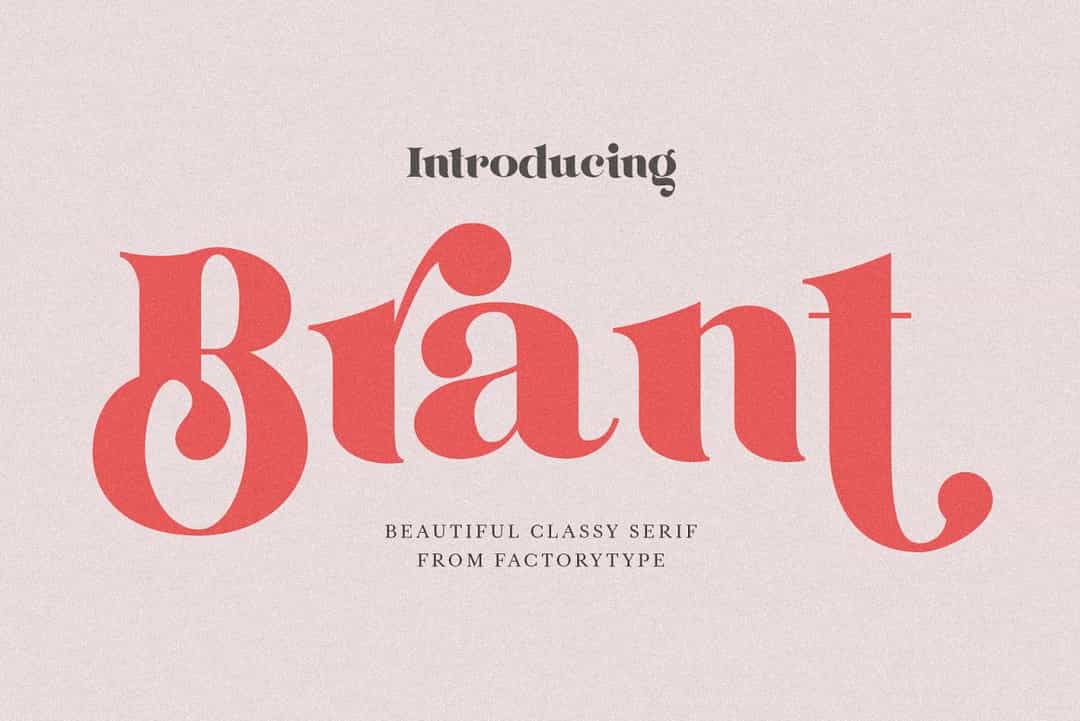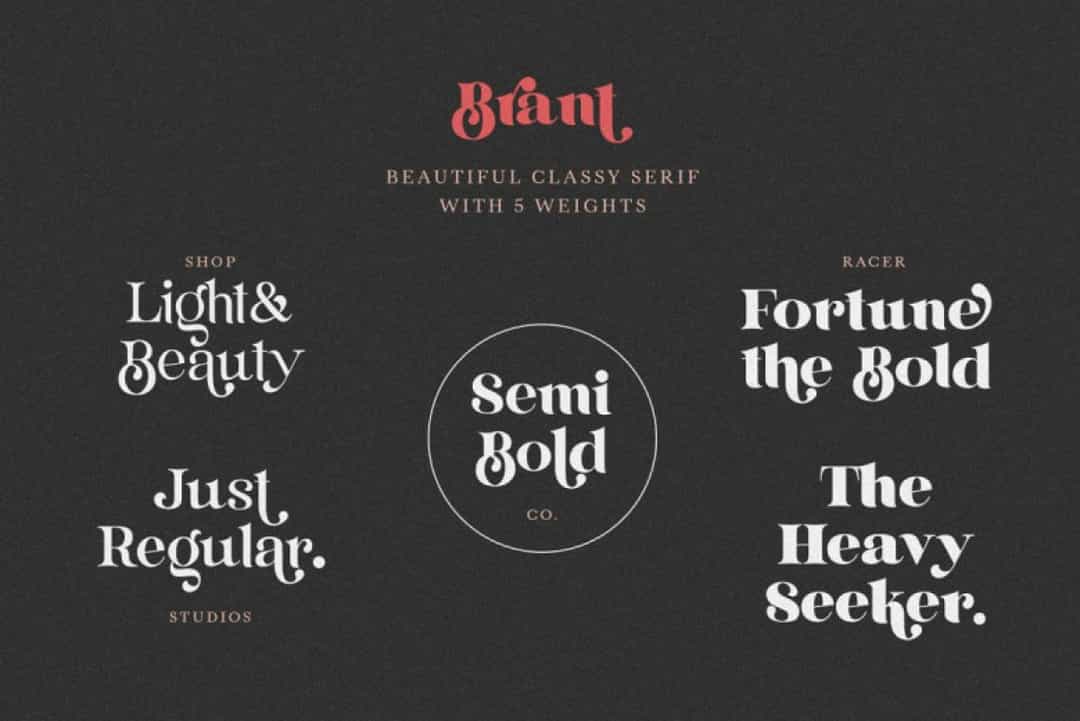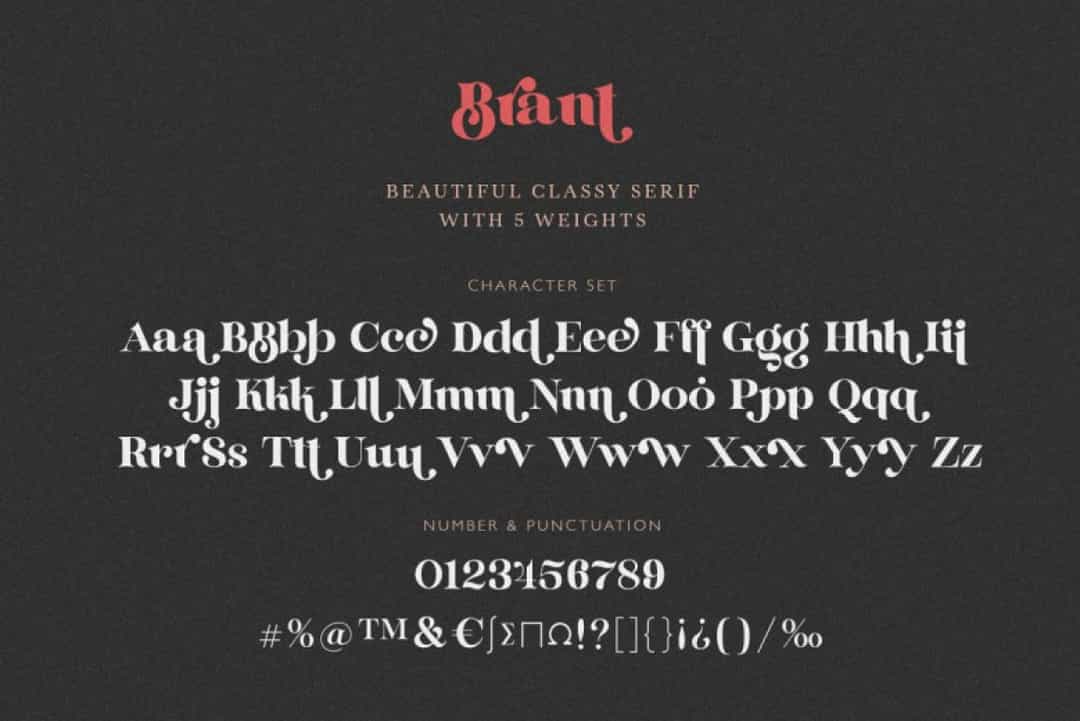
BRANT font is an exciting new addition to our collection, designed specifically for logos and branding with its modern classic serif design and curvy form evoking elegance and class. Available in various weights to find just the perfect hues for typography applications; no matter your project these Ligature or Alternate fonts will surely help!